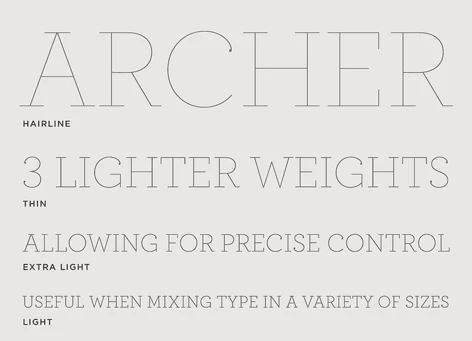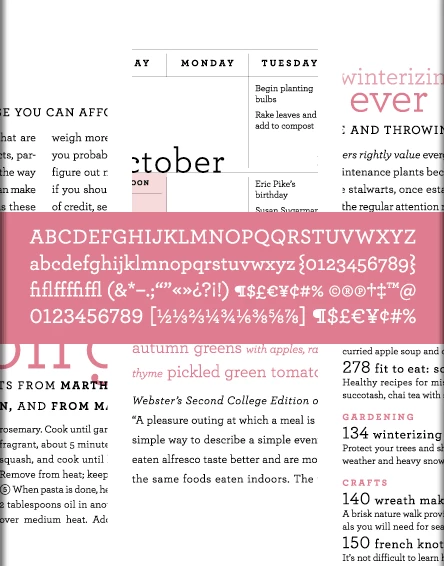
Archer typeface- uses?
I recently discovered a new typeface called Archer, by Hoefler and Frerer-Jones.
I really like it, but I think it could have limited uses?
WHat do people think?
Worth the money? Or just another display face?
Archer recently became the corporate typeface for Wells Fargo, who uses it for display and body copy. It works very well for them. I must say that I have come to love working with this typeface. I especially love the elegant terminals on letters such as the S and C, and the wide variety of weights offers many applications for this type family. Also, the opentype features that come with these fonts are well-designed and very useful.
I have recieved mixed reviews from clients - some say it is too typewriterish, some love it - but I have found this to be a very versatile typeface.
I'd love to continue this discussion ...